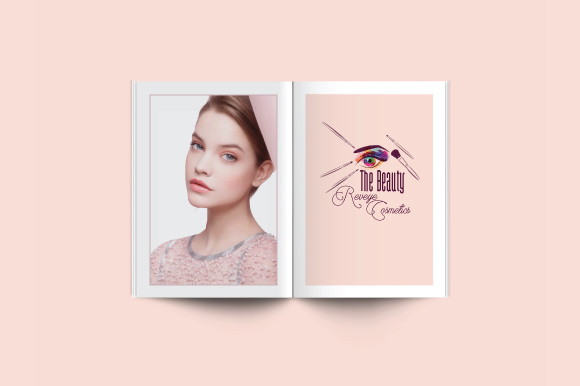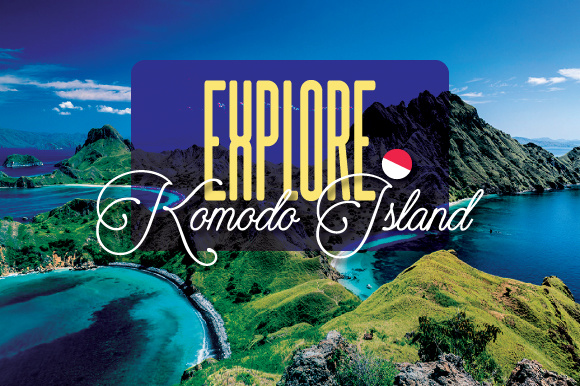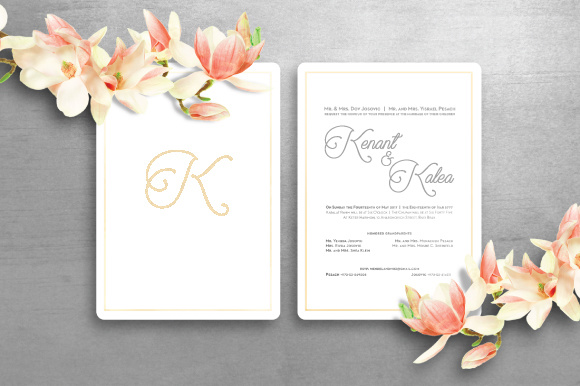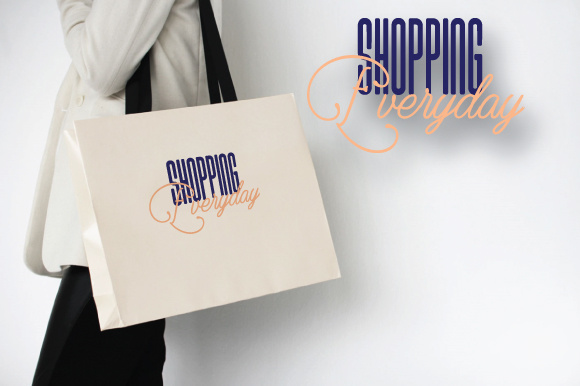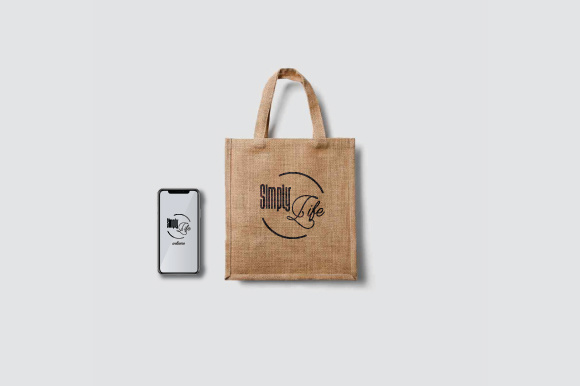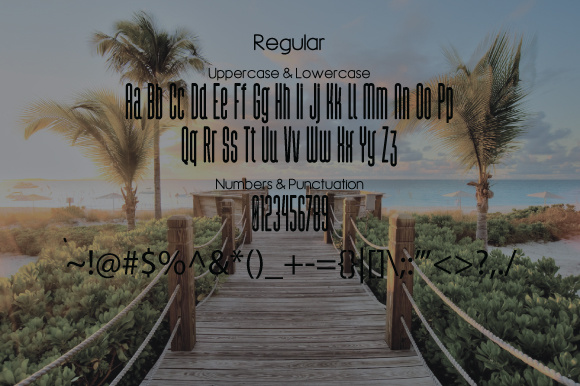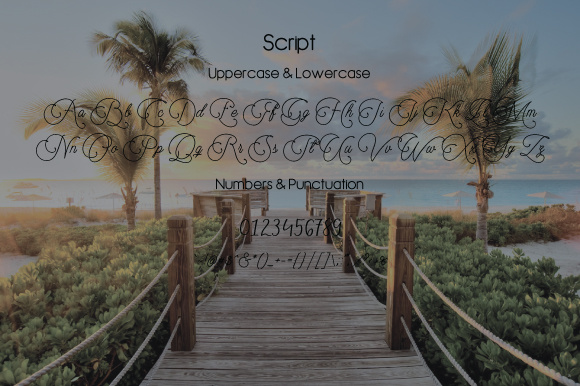
Muhaqu Duo Font
About Muhaqu Duo Font
The Muhaqu Font Duo is a combination of a sans and a script font.
The Muhaqu Font Duo can be used for many different types of project, such as invitation, branding, brochure, digital marketing, etc.